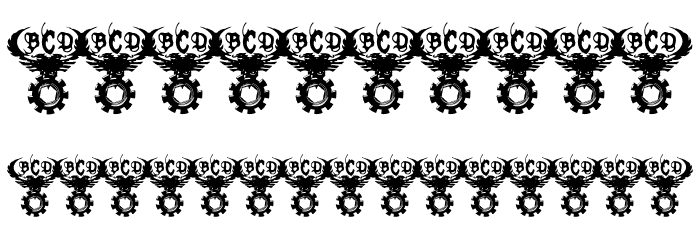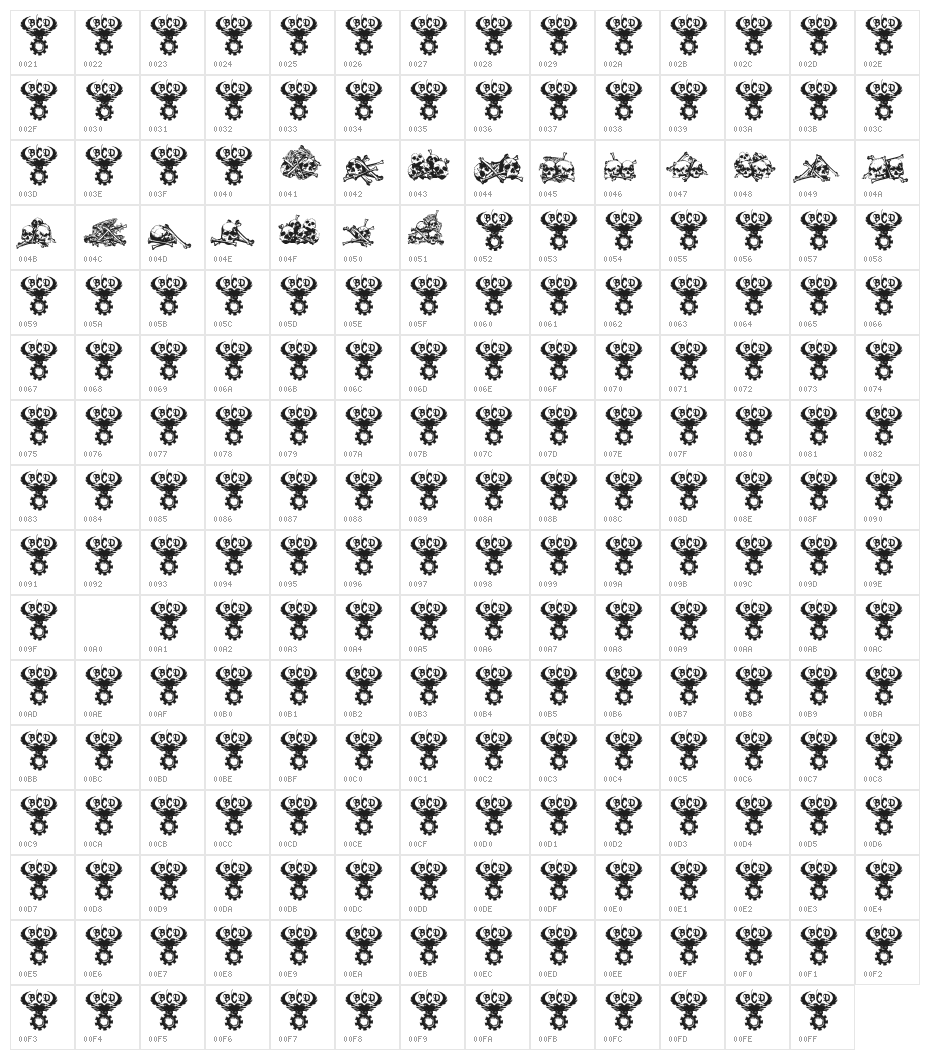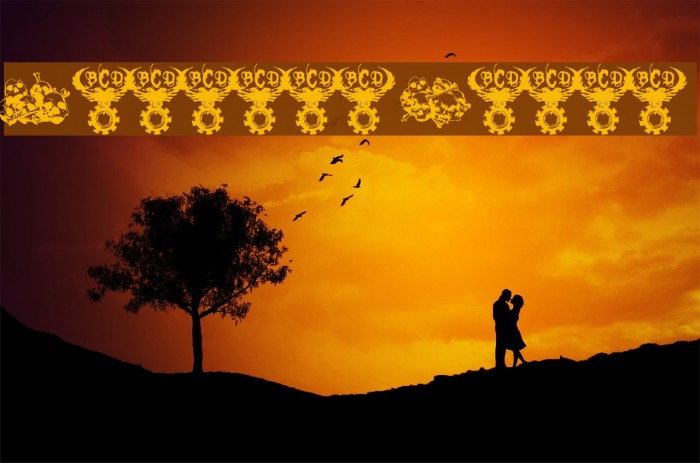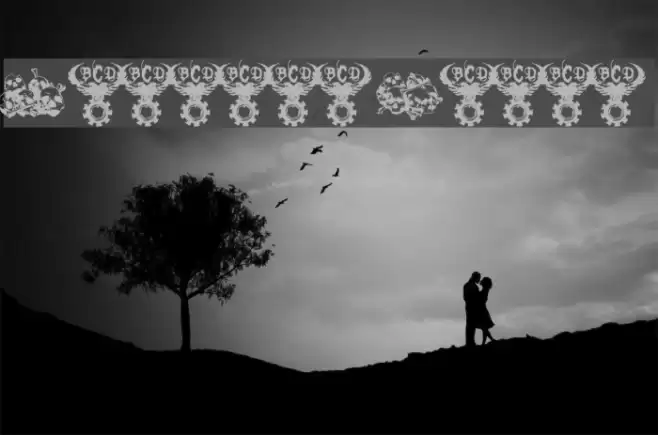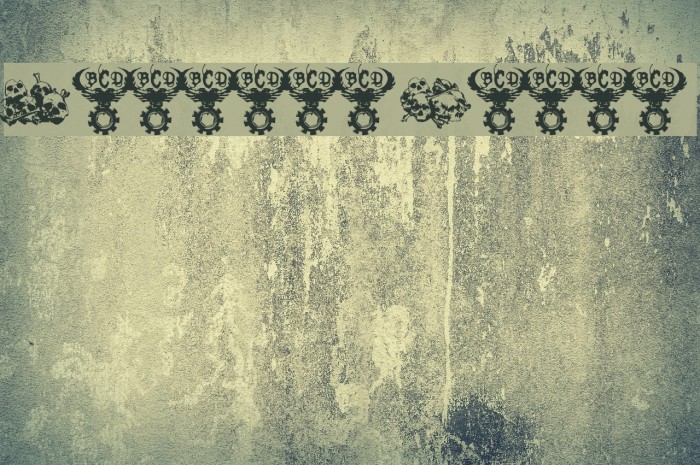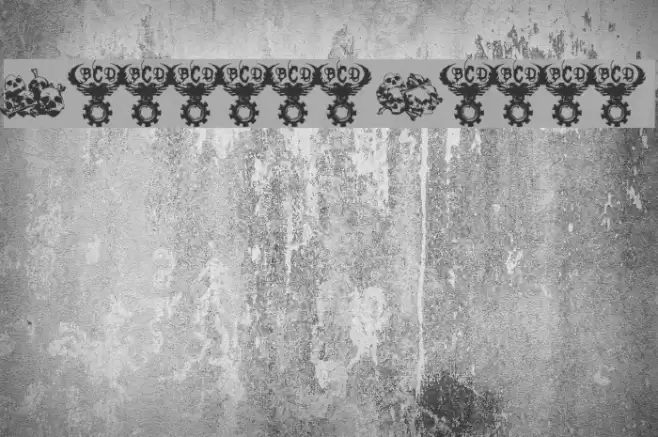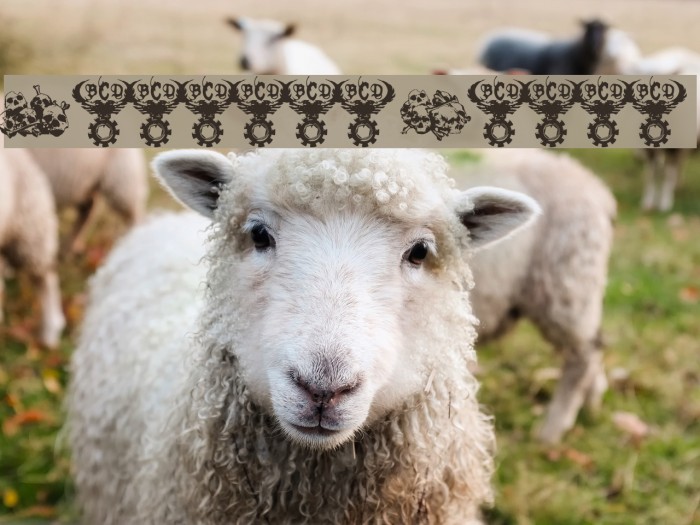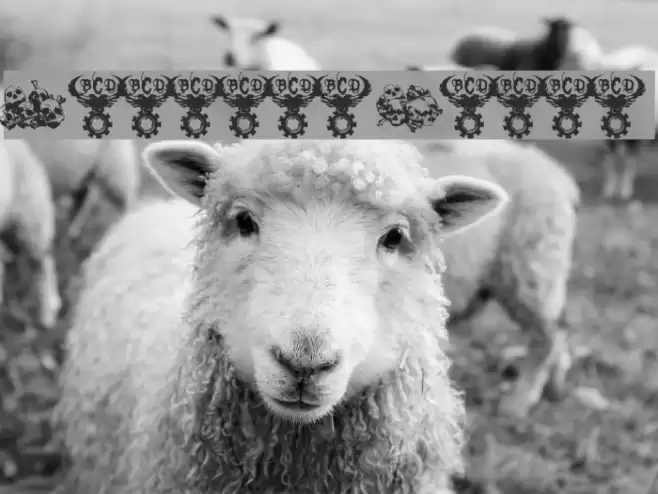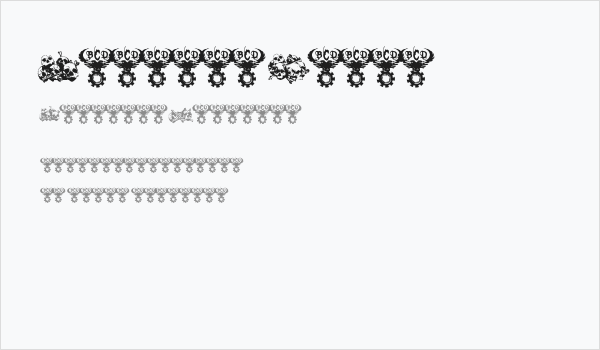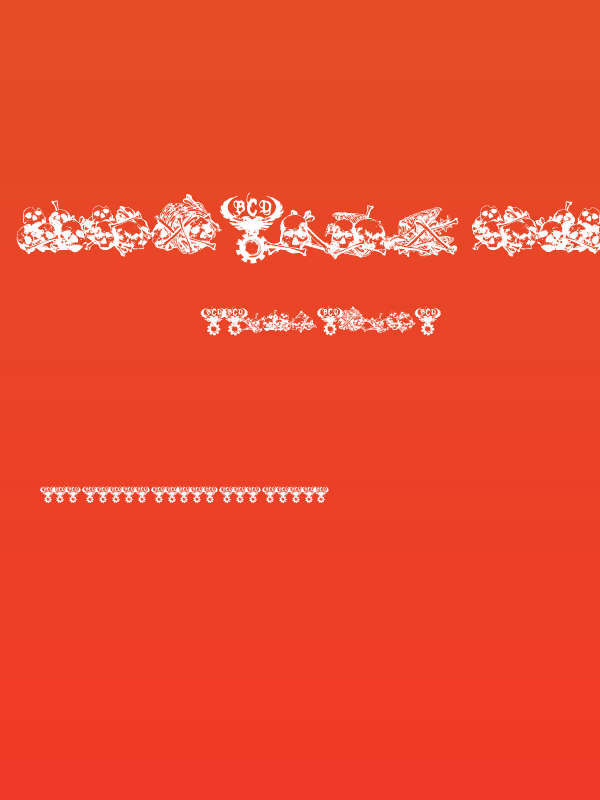
Charnel House Font
Charnel House Description
This font is a highly decorative and thematic typeface featuring intricate designs that incorporate skulls, bones, and other macabre elements. Each character is uniquely crafted with detailed illustrations that evoke a sense of gothic horror and dark fantasy. The letters are surrounded by ornate embellishments, making them appear as part of a larger, cohesive artwork. This font is not designed for readability in body text but rather for impactful visual statements. The intricate details and thematic consistency make it ideal for projects that require a strong, atmospheric presence.
| Overall Style | Gothic, Decorative |
| Use Case | Logos, Posters, Themed Events |
| Proposed Projects | Ideal for Halloween-themed designs, horror movie posters, gothic event invitations, and album covers for metal or rock bands. |